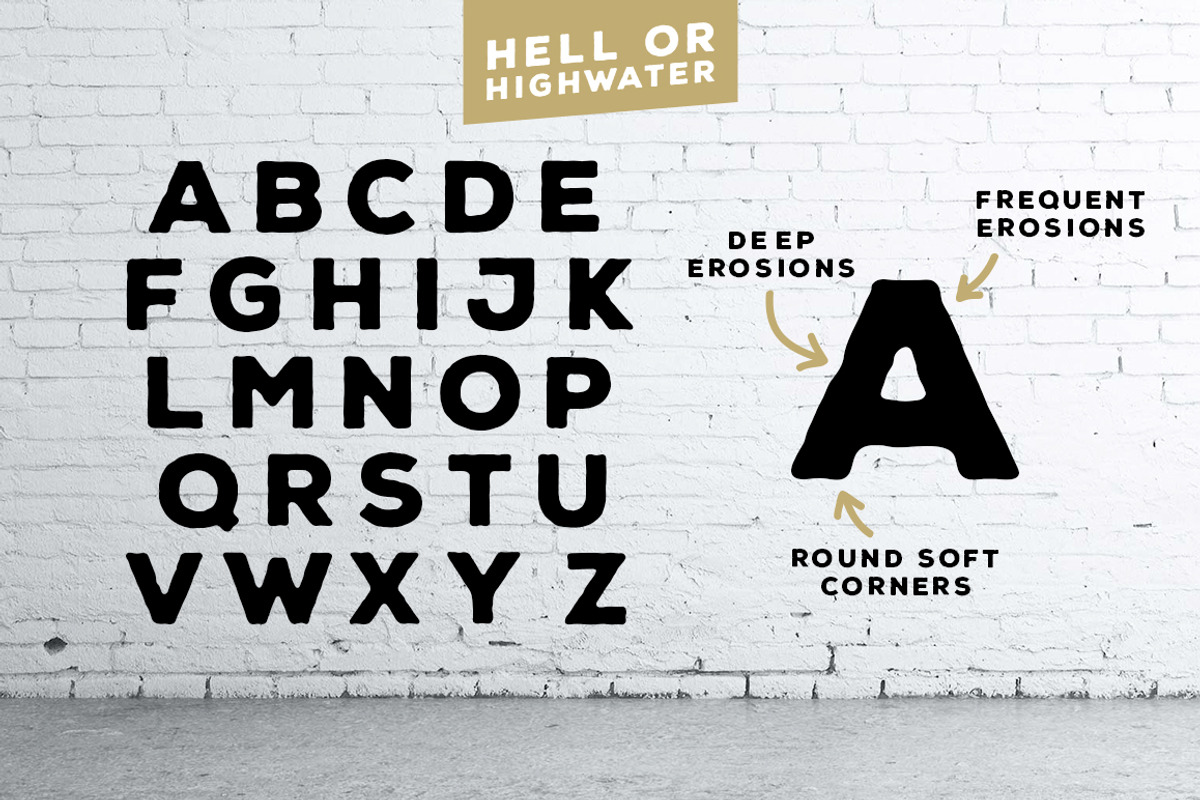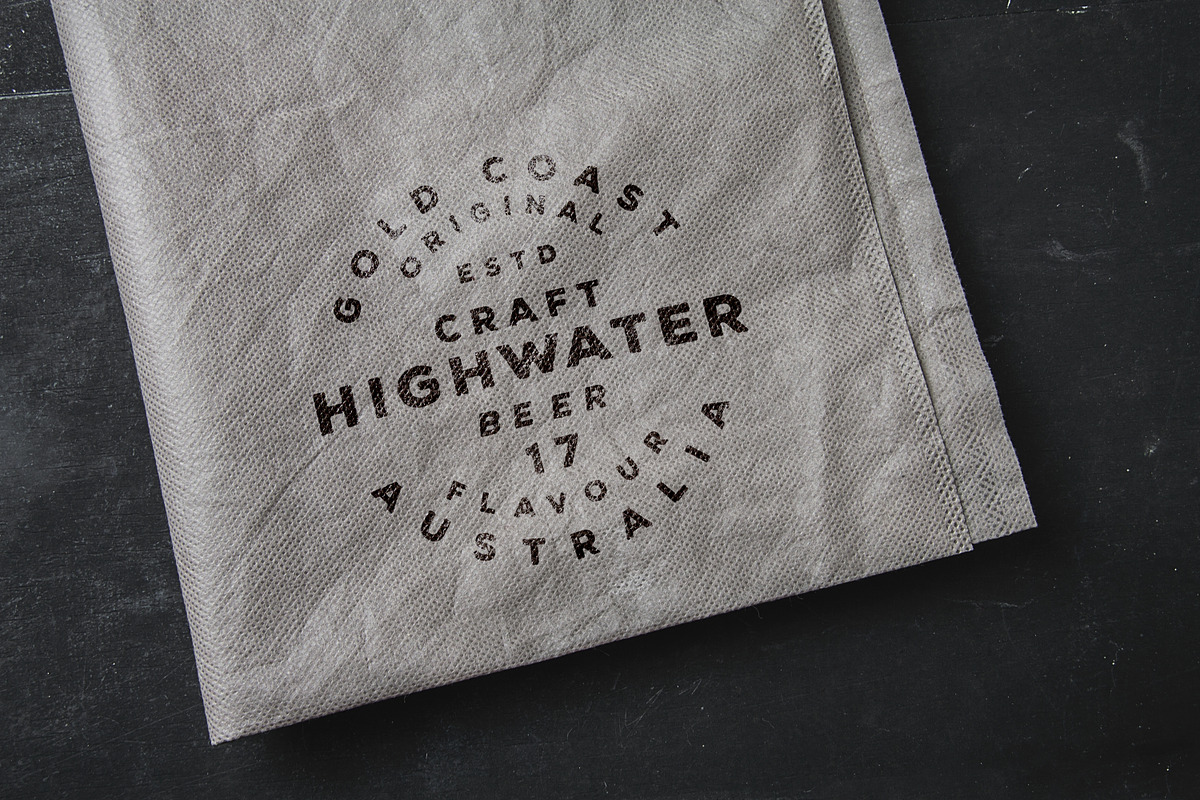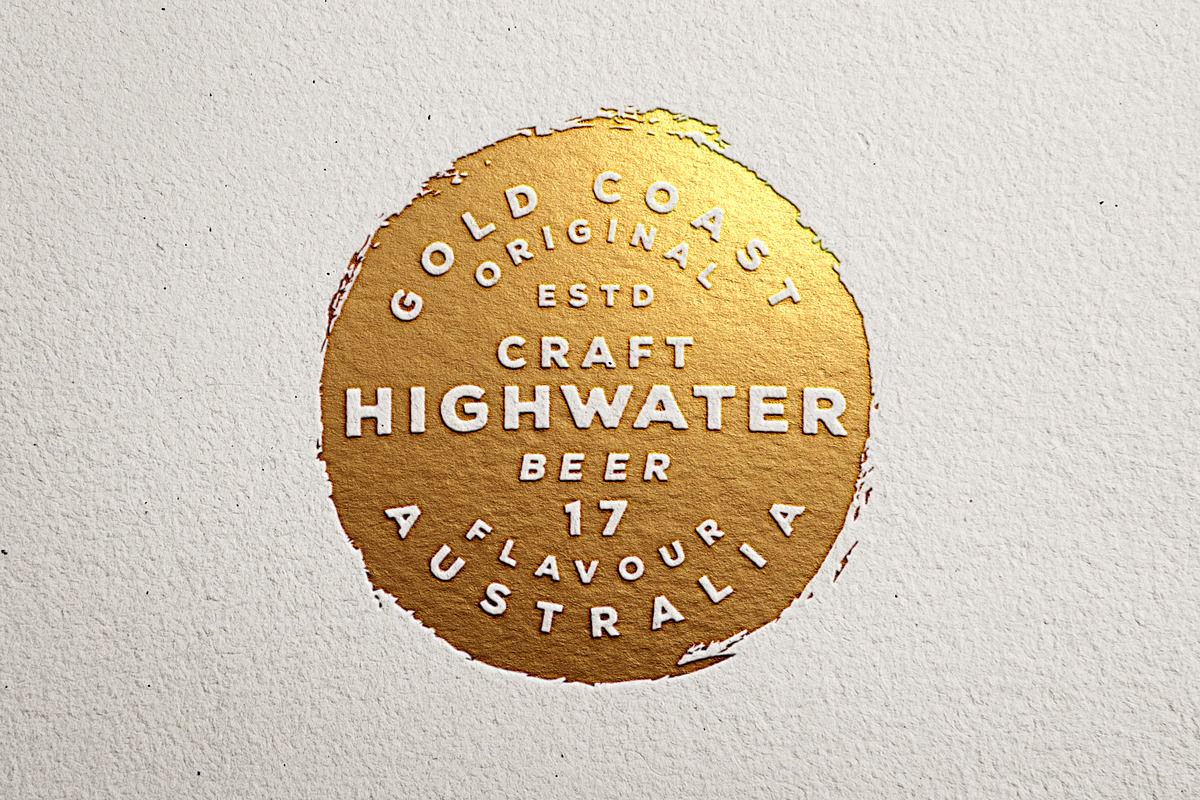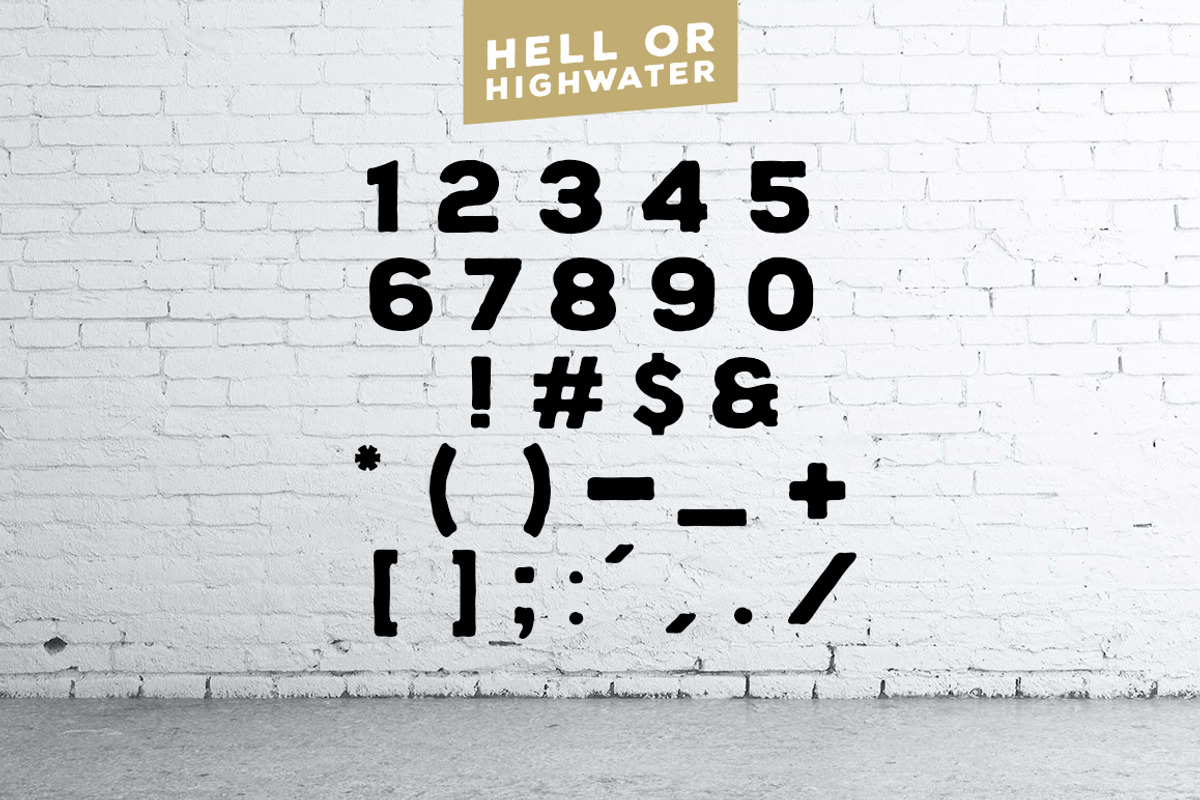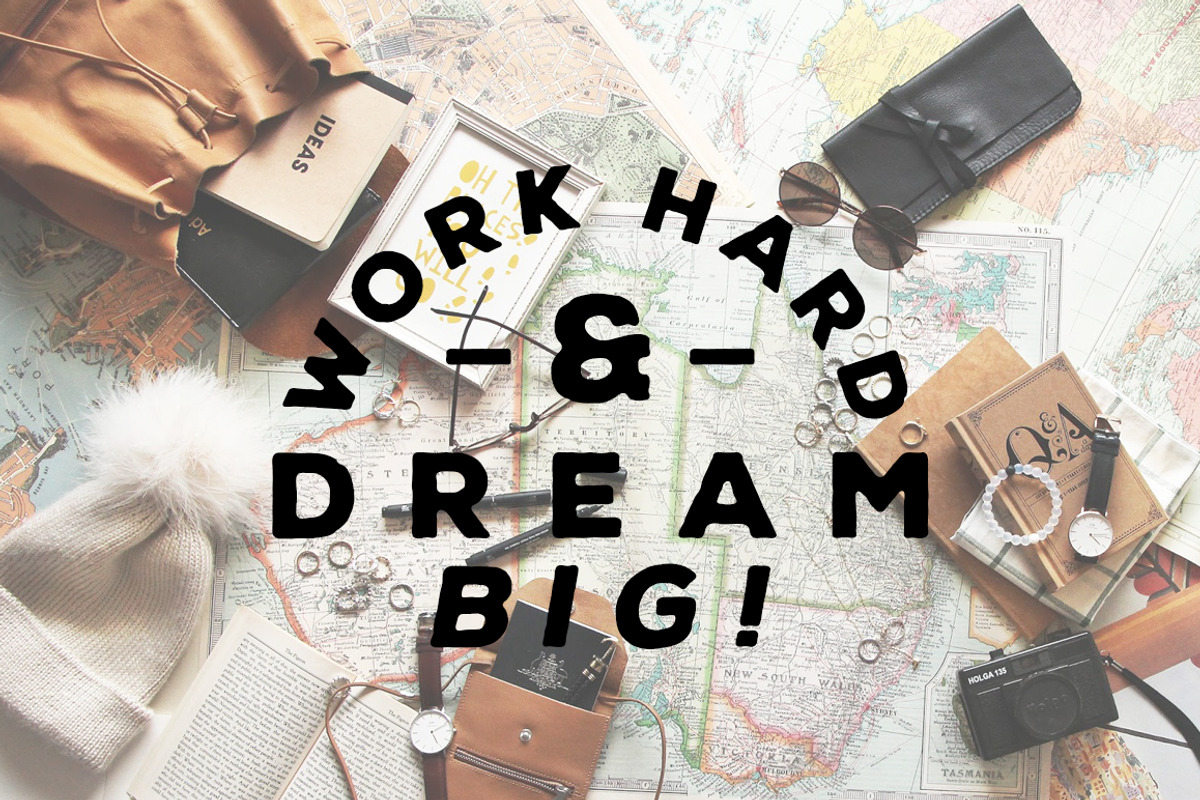
Hell or Highwater - Sans Serif Font
Hell or Highwater - Sans Serif Font by RyanBowlesDesign is a font selected for branding, posters, packaging, typography.
- It contains a full set uppercase letters and numerals and a large range of punctuation.
Why Hell or Highwater - Sans Serif Font is worth a look
Hell or Highwater - Sans Serif Font by RyanBowlesDesign fits naturally into Branding, posters, packaging, typography.